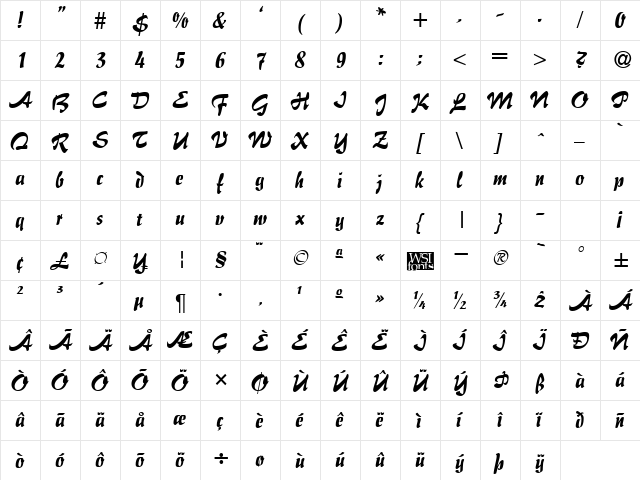
Brush Flair Regular
Design Context for Brush Flair Typeface
Brush Flair brings a calligraphic fluidity to the page — its connecting strokes and expressive curves give it an unmistakably human quality.
Font Pairing: Combine Brush Flair with a simple geometric sans for maximum contrast — the tension between flowing curves and clean structure is a classic typographic pairing.
Pro Tip: Pair Brush Flair with a clean sans-serif for supporting text. The contrast between fluid script and geometric structure creates an elegant typographic hierarchy.